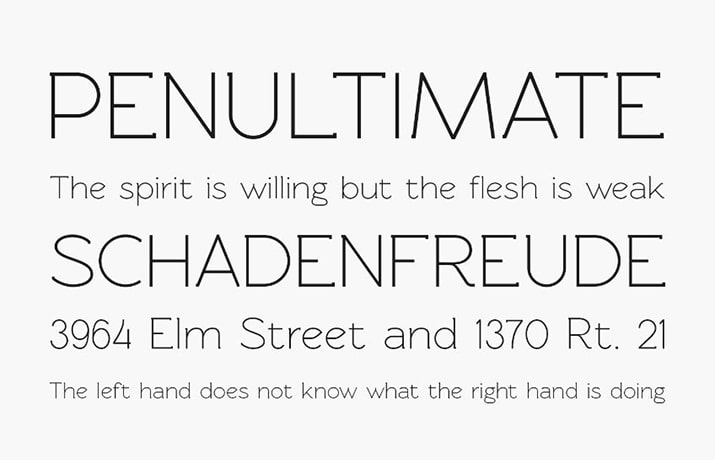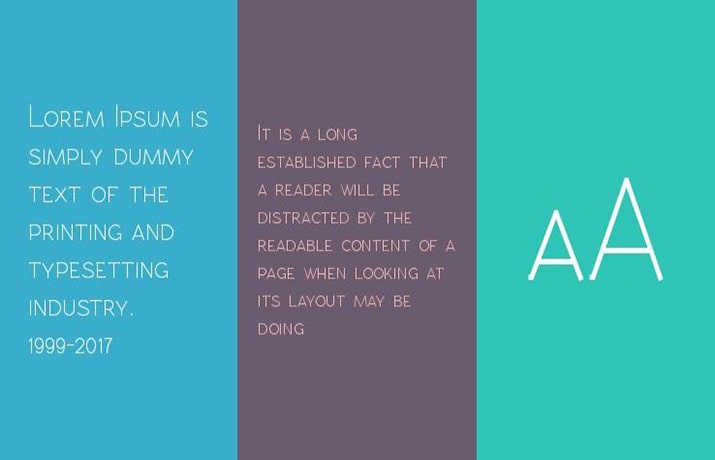
If you’re looking for a font that has a minimal and skinny letter design, Rawengulk Font is made just for you. It is suitable for logos, business cards, posters, and everything.
A Polish font designer Grzegorz l took the charge of creating it. And released via GulkFonts on 13 September 2010.
It’s a stunning typeface with a universal nature that looks incredible across a wide range of uses. As such, this basic typeface works particularly well in books and long paragraphs.
Due to its futuristic structure, it has a great shape, and agreeable structure and provides a personal touch to correspondence.
You can craft amazing logos, headers, covers, posters, business cards, emblems, branding, game titles, game graphics, posters, labels, product designs, technical documents, photography, graphic arrangements, banner designs, as well as many other awesome things.
It comes in six unique styles including Ultra Light, Light, Regular, Demi Bold, Bold, and Petite Caps. The font family includes 538 characters in four styles, while regular styles have 675 glyphs and petite caps have 456 glyphs.